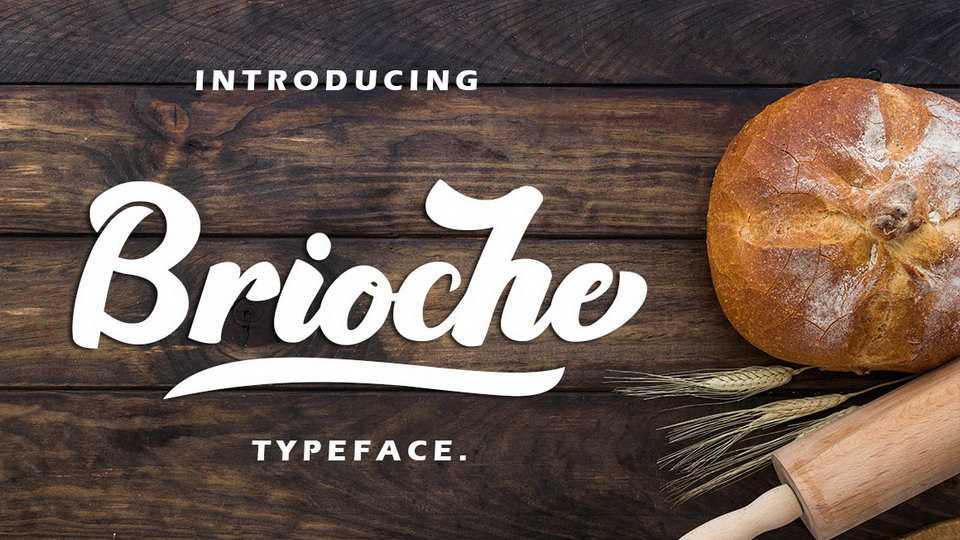
Download Brioche font, a bold, clean and casual handmade scrip with some attractive swashes, titling, and ligatures that will make your design work more easier.
Designer: DM Letter Studio